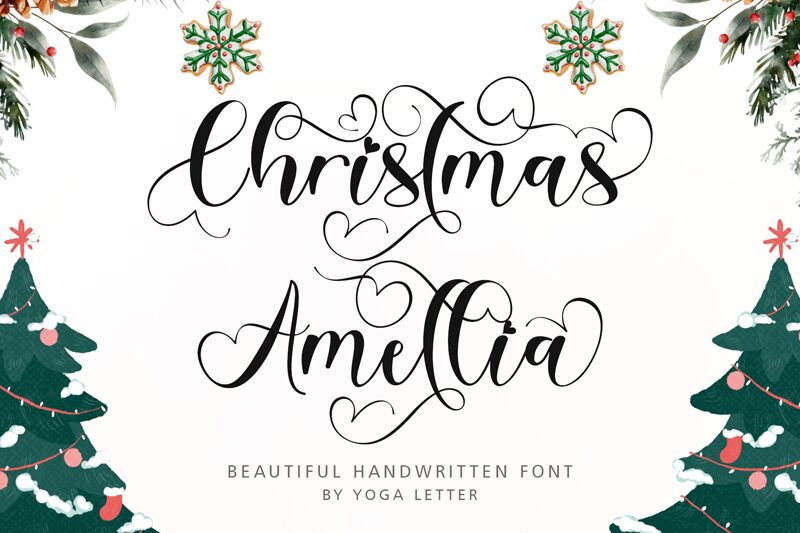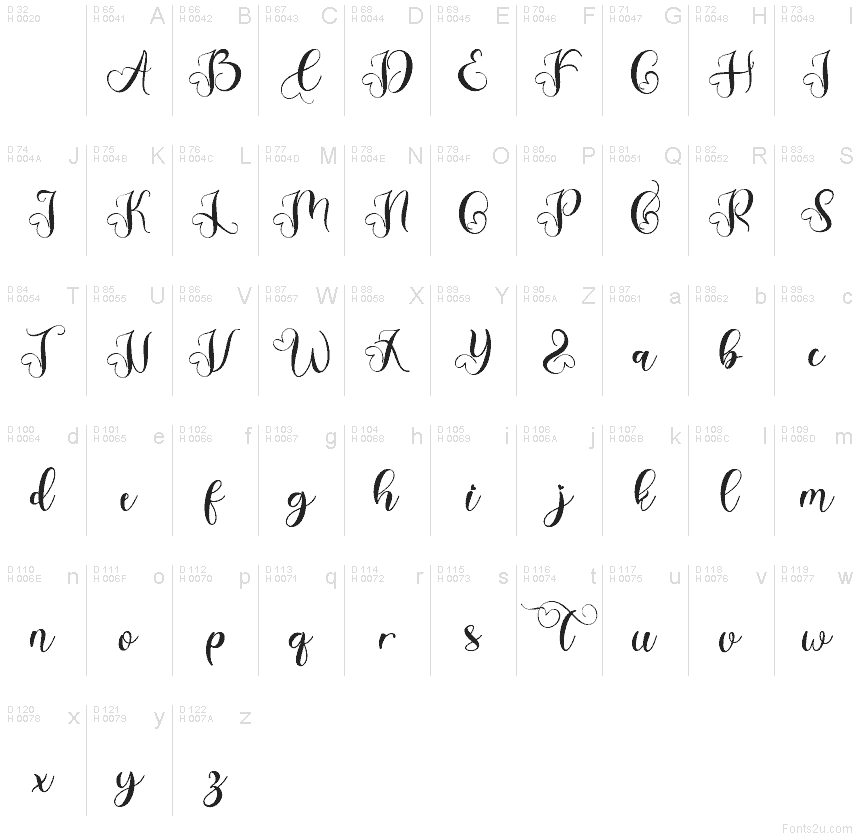
Christmas Amellia
Christmas Amellia font by Yoga Letter is a free calligraphy typeface that pours holiday charm into every curve. Its long, sweeping strokes and playful loops feel like they were written with a real inky brush on crisp gift tags, giving your designs a warm, handmade touch. The letters connect with an easy rhythm that looks luxurious without feeling stiff or formal, making seasonal projects feel personal and inviting.
Using Christmas Amellia, you can instantly dress up Christmas cards, party invitations, gift labels, product packaging, social media graphics, and cozy seasonal quotes. This free font shines on large headings where its flourishes have room to breathe, while a clean sans serif in the subtext keeps everything readable. Try pairing it with a simple geometric sans and generous line spacing to let those festive swashes swirl without crowding your layout.